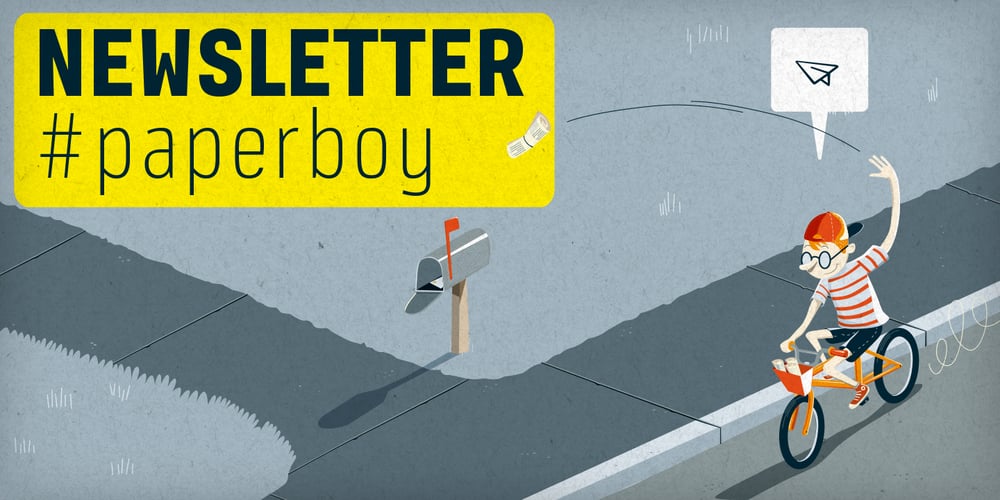
Newsletter Font Family was designed by Ingo Krepinsky and published by Die Typonauten. Newsletter contains 11 styles and family package options. Monospaced but no mono space. Created from 2002 to 2007 this font family is influenced by fonts like OCR-B, DIN and the work of Erik Spiekermann. Newsletter is not a real monospaced font but has the ease of recognition these fonts have – even though these fonts are often criticized for their aesthetic qualities. Newsletter has a computer-related impression but is more legible and aesthetic than real monospaced fonts are. Since 2006 Newsletter is the corporate font of the design agency “die Typonauten”. It is eminently suitable for correspondence use. After a testing period and fine tuning it is now published.